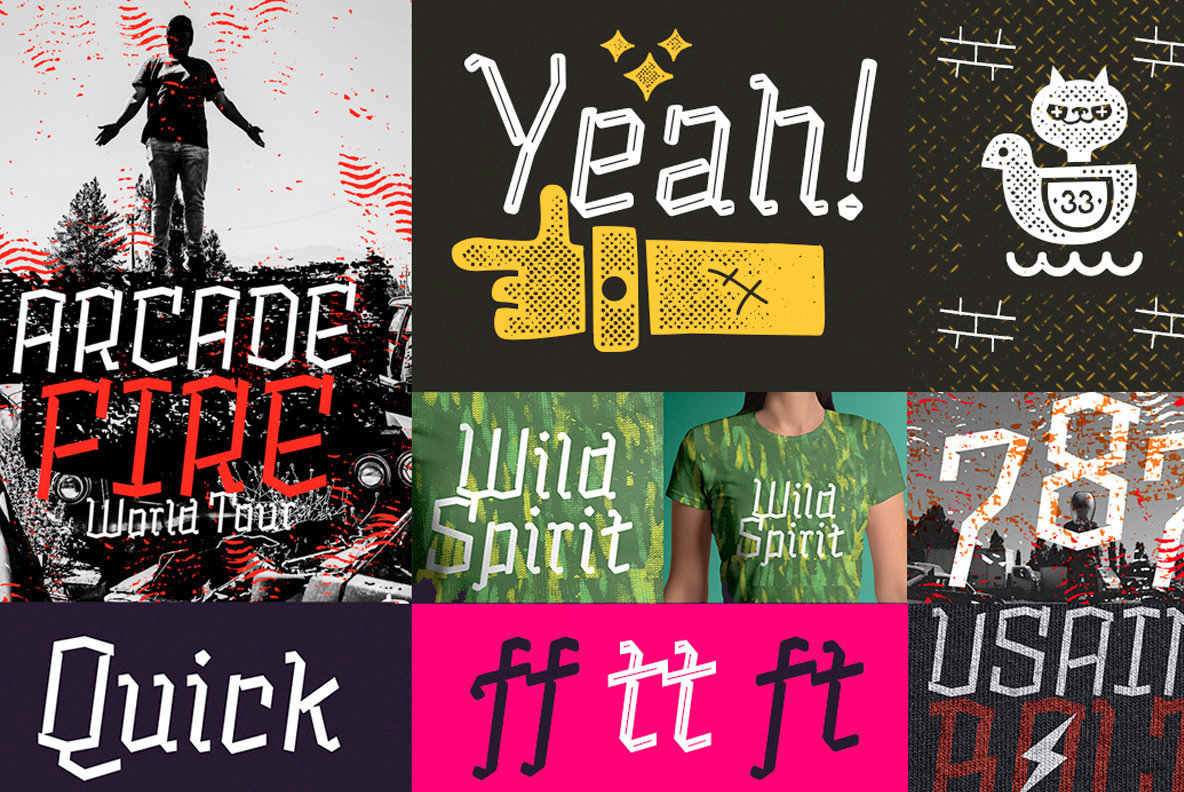
Alquitran Pro Font
Alquitran Pro, designed by Alejandro Leiva, brings a distinctive flair to modern typography. This typeface captures attention with its unique design elements while maintaining ease of readability, making it an excellent choice for diverse creative projects. Alquitran Pro provides graphic designers with a striking option that stands out in any setting, balancing style and substance seamlessly.Alquitran Pro: Distinctive Typeface With Character